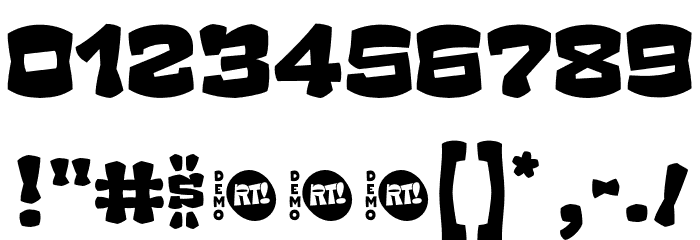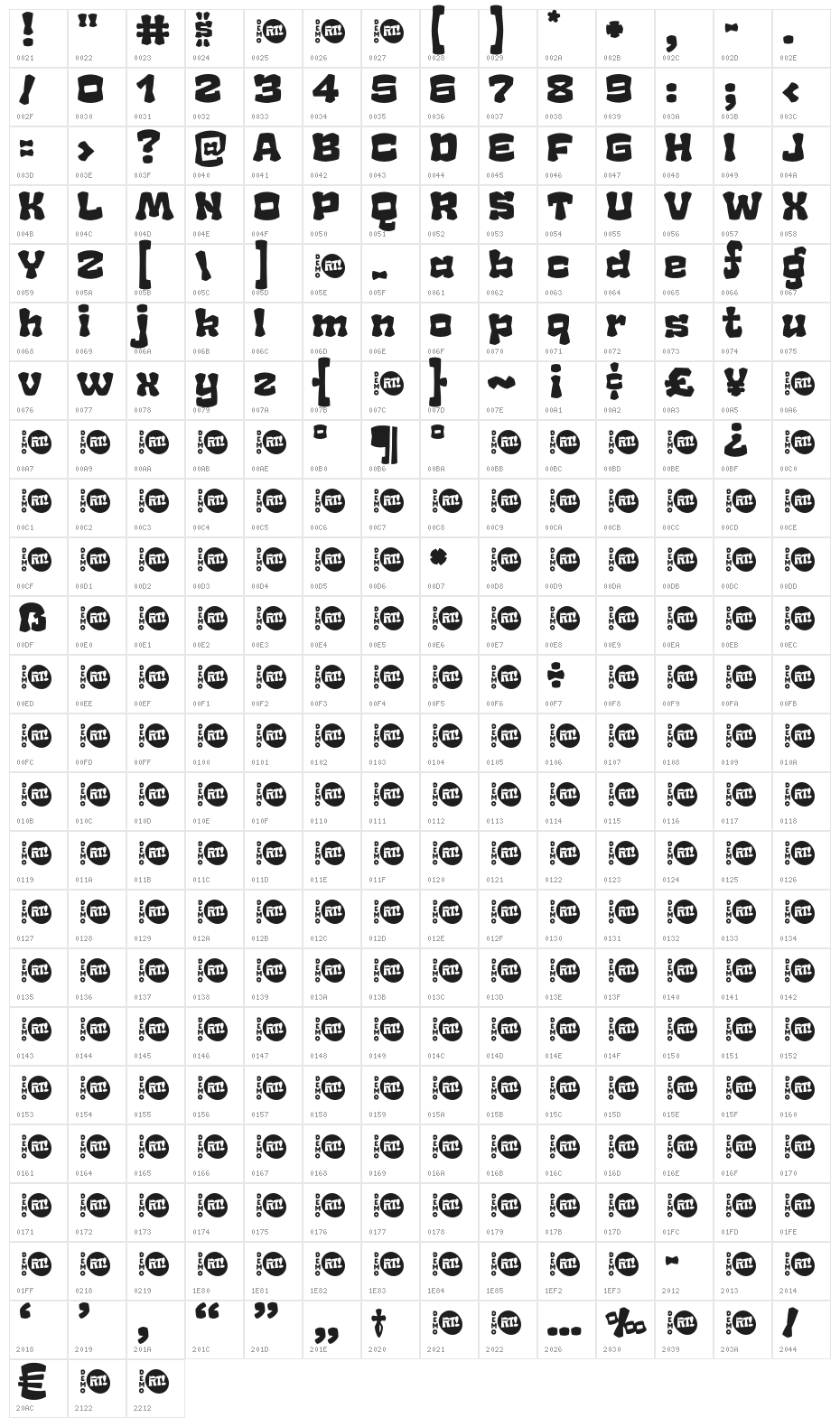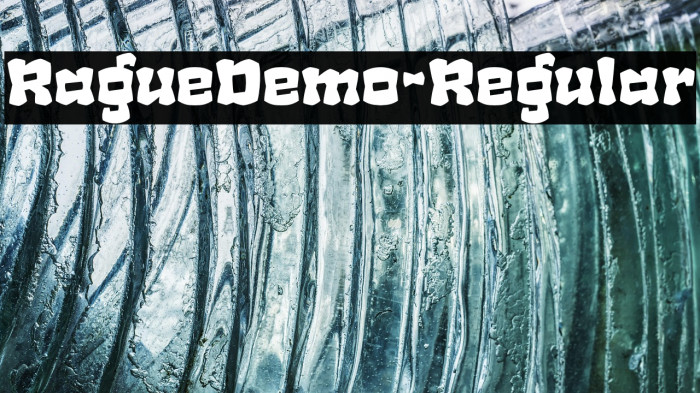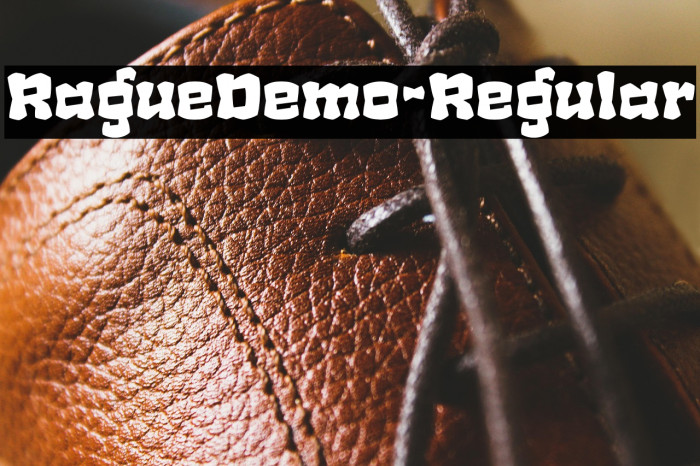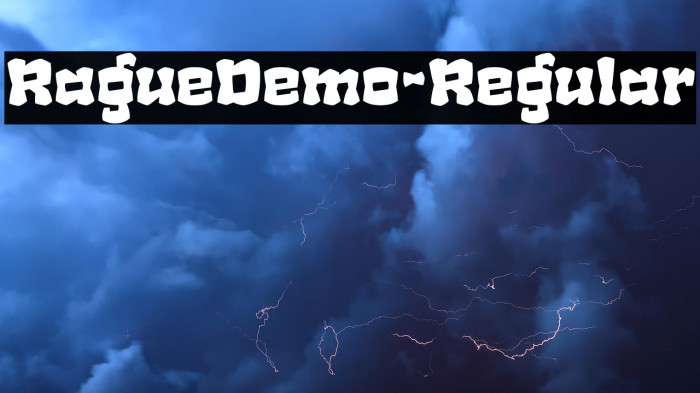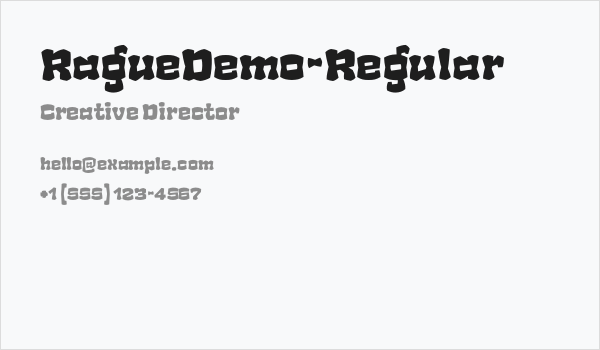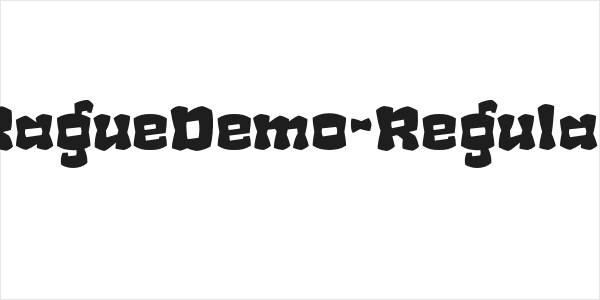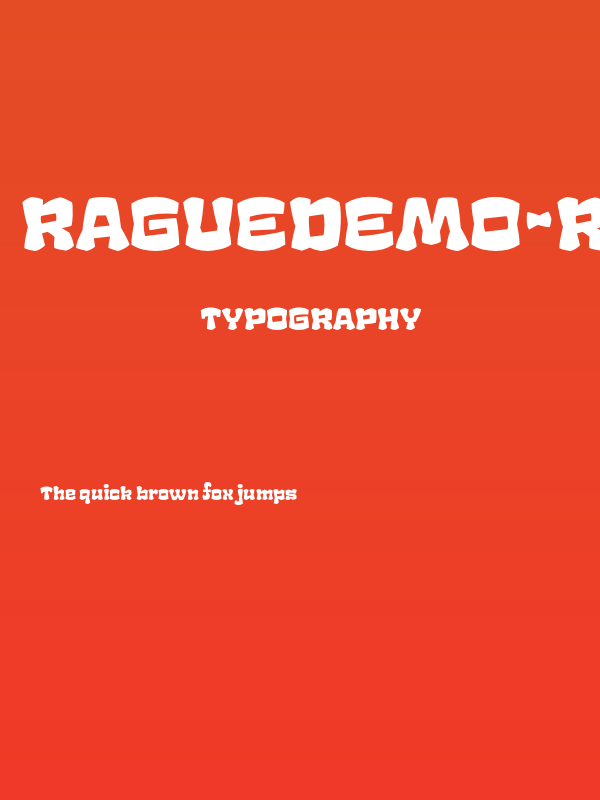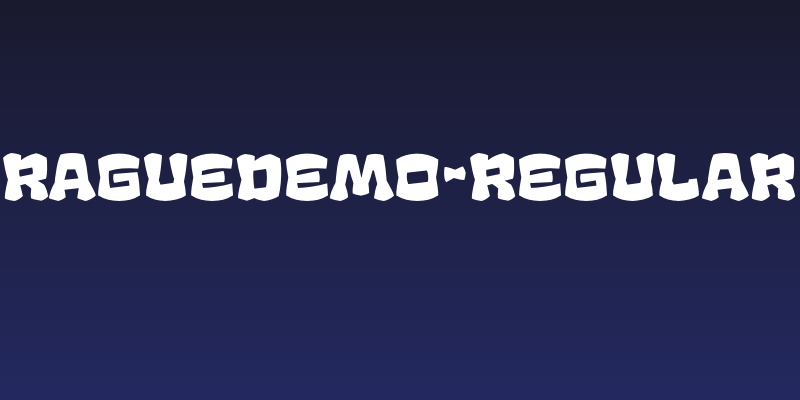
RagueDemo-Regular Font
RagueDemo-Regular Description
This font features a bold and playful design with a distinctly irregular and chunky appearance. The characters have a hand-drawn quality, with uneven edges and a slightly distorted form that adds a whimsical touch. The uppercase and lowercase letters maintain a consistent style, with exaggerated curves and angles that give the font a dynamic and energetic feel. The numbers and special characters follow the same design principles, ensuring a cohesive look across all elements. This font's unique style makes it stand out, making it suitable for creative and unconventional projects.
| Overall Style | Playful, Whimsical, Creative |
| Proposed Projects | Ideal for children's books, playful branding, posters, and creative design projects. |